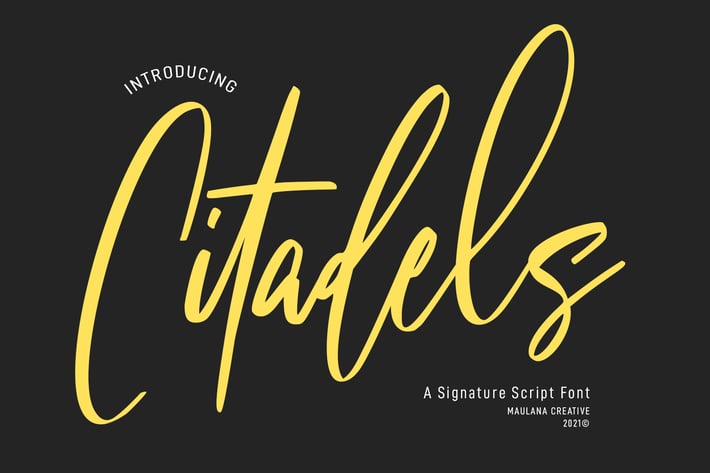
Citadels Signature Script Font
Citadels is a Fancy Signature script font. With contrast stroke, slanted and fun character with a bit of ligatures. To give you an extra creative work. Citadels font support multilingual more than 100+ language. This font is good for logo design, Social media, Movie Titles, Books Titles, a short text even a long text letter and good for your secondary text font with sans or serif. Make a stunning work with Citadels font.